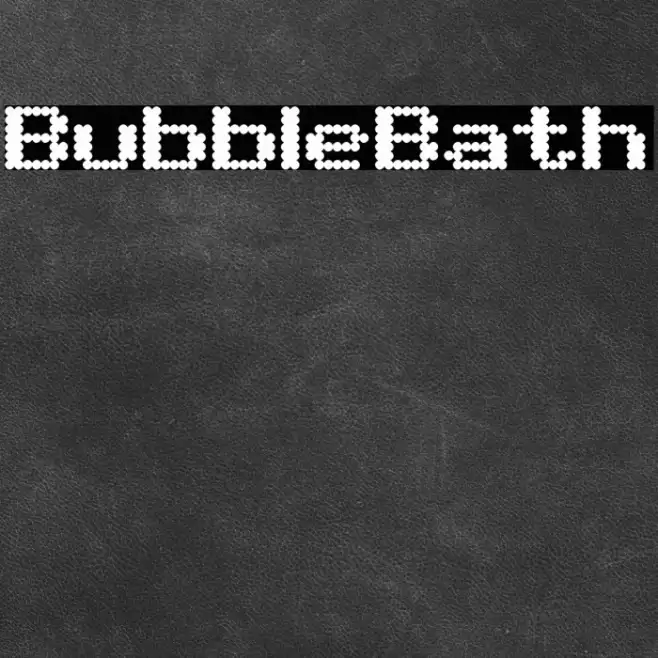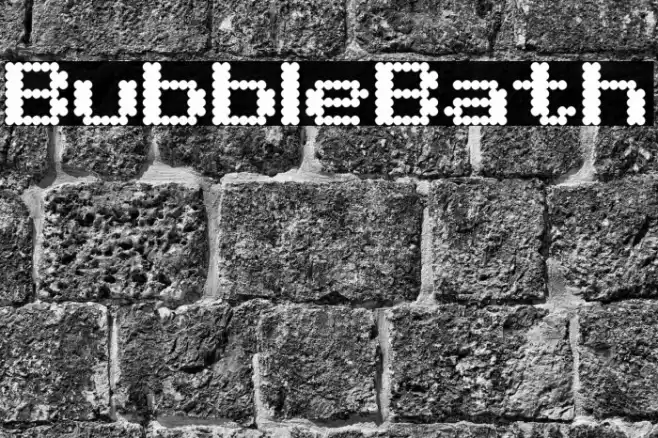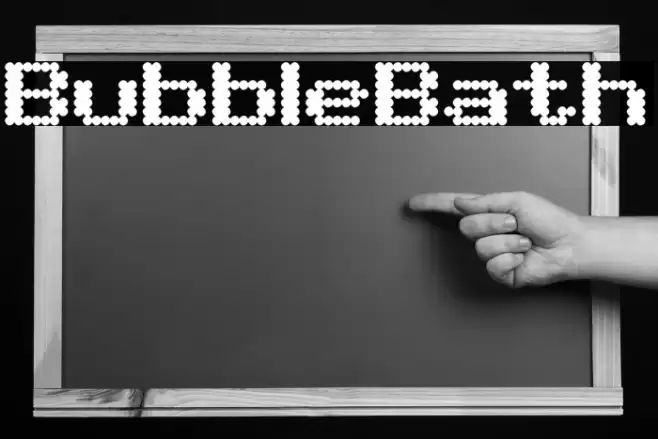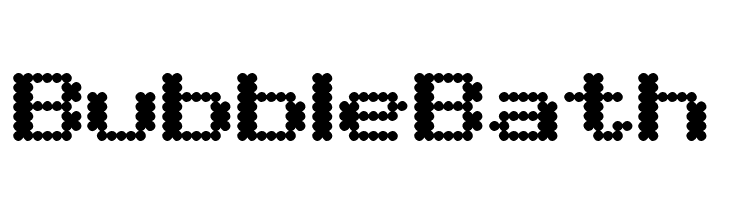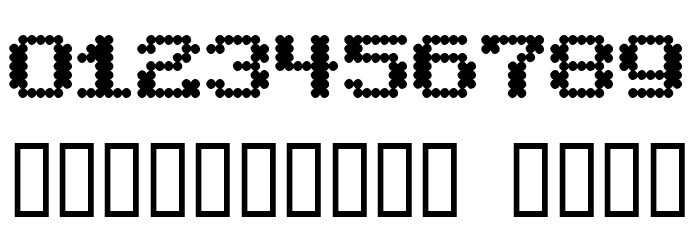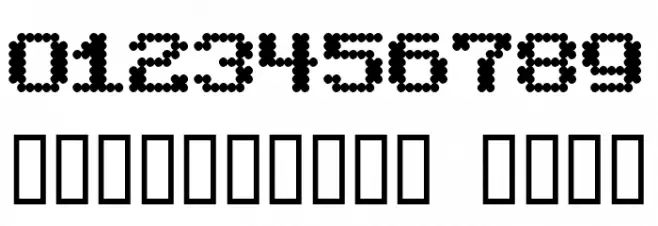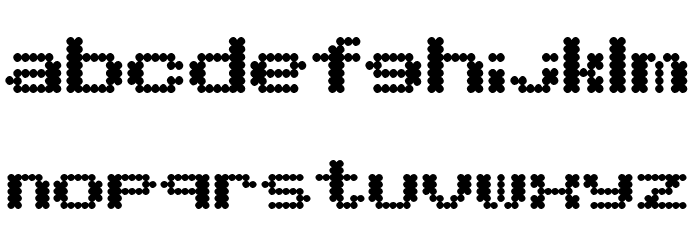
BubbleBath Font
BubbleBath Description
This playful and unique font features characters composed of small, evenly spaced circles, creating a dotted effect. The design is consistent across uppercase, lowercase, numbers, and special characters, giving it a cohesive and distinctive appearance. The circular elements provide a sense of fun and whimsy, making it ideal for creative and informal projects. The font maintains a uniform weight and width, with each character clearly defined by its circular components. The spacing between characters is normal, ensuring readability while preserving its decorative style.
A playful, dotted font with characters formed by small circles, perfect for creative projects from Cartoon fonts.
- Proposed Projects: Ideal for children's books, playful branding, party invitations, and creative posters.
- Overall Style: Playful